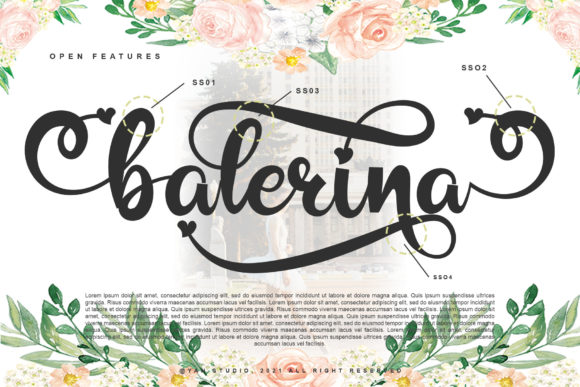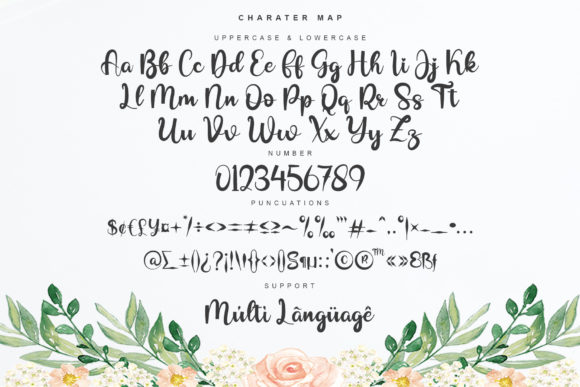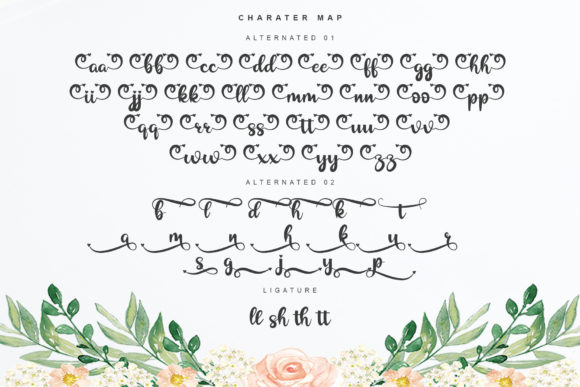
When Words Become Works of Art
There’s something magical about capturing the essence of a thought or emotion in a single, perfectly crafted word. It’s a moment of pure creative bliss, where the ordinary becomes extraordinary. For designers, this feeling is a constant pursuit – a quest to elevate their message and make it unforgettable.
That’s where the Baby Heart Font comes in – a lovely and timeless handwritten font that’s perfect for creating eye-catching logos, branding, and quotes. With its PUA-encoded features, designers can access all glyphs and swashes with ease, unleashing a world of creative possibilities. Whether you’re a seasoned pro or just starting out, this font is an invaluable tool in your design arsenal – a secret ingredient that can elevate your work and make it truly stand out.
Baby Heart Font Key Features
- Font Type: Script Font, suitable for titles, headings, and short texts.
- Unique Characteristics: Hand-drawn design with a playful, cursive feel, perfect for baby-related projects, such as nursery decor, children’s books, and gift tags.
- Font Weight: Available in Light, Regular, and Bold weights, allowing designers to choose the perfect level of expressiveness for their project.
Baby Heart Font Review
I recently had the chance to work with the Baby Heart Font, and I must say it’s a unique addition to any design project. ✨ The font’s playful and cursive style is perfect for creating a whimsical atmosphere, especially when used for children’s products or baby-related designs. The font is highly customizable, allowing designers to easily adjust the size, color, and spacing to fit their needs.
Here are some of the things that worked well for me:
- ✨ Highly customizable
- ✨ Unique and playful style
- ✨ Easy to read, even at small font sizes
- ⚠️ Limited character set, which can make it difficult to use for longer text blocks
- ⚠️ May not be suitable for formal or professional designs
- ⚠️ Can be prone to font kerning issues, especially at larger font sizes
Overall, the Baby Heart Font is a great choice for designers looking to add a touch of whimsy to their projects. While it may have some limitations, its unique style and high level of customization make it a valuable addition to any design toolkit.
Tip: Use the Baby Heart Font to create a cute and playful design for a baby shower invitation or a nursery decor.
Tip: Use the Baby Heart Font to create a custom logo or a heartwarming greeting card.
Tip: Use the Baby Heart Font to create a cute and playful presentation for a baby shower or a nursery decor.
The Baby Heart Font is perfect for:
- Baby shower invitations and decorations.
- Nursery decor and wall art.
- Custom logos and branding for baby-related businesses.
- Cute and playful greeting cards.
Carolyna Pro is a elegant and luxurious script font that’s perfect for creating a high-end look. It’s ideal for luxury brands, fashion designers, and upscale events. Carolyna Pro has a more sophisticated and refined look compared to Baby Heart Font, making it suitable for high-end design projects.